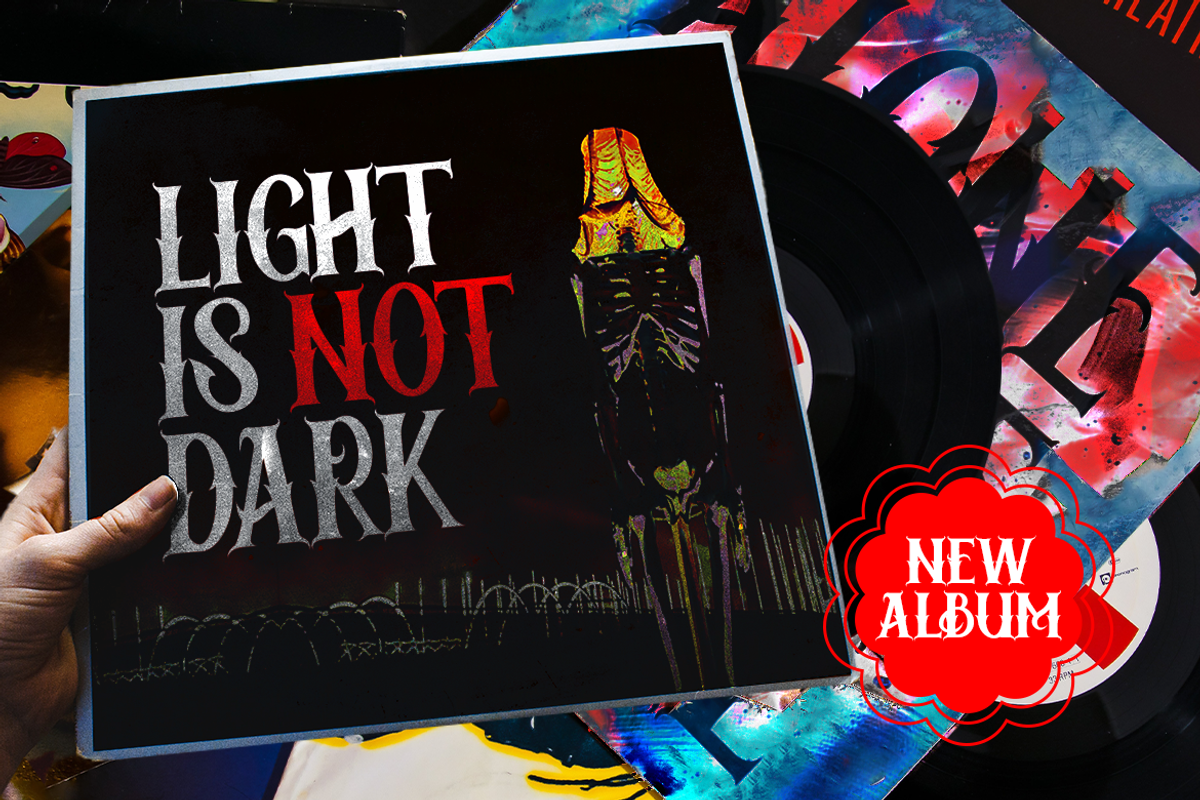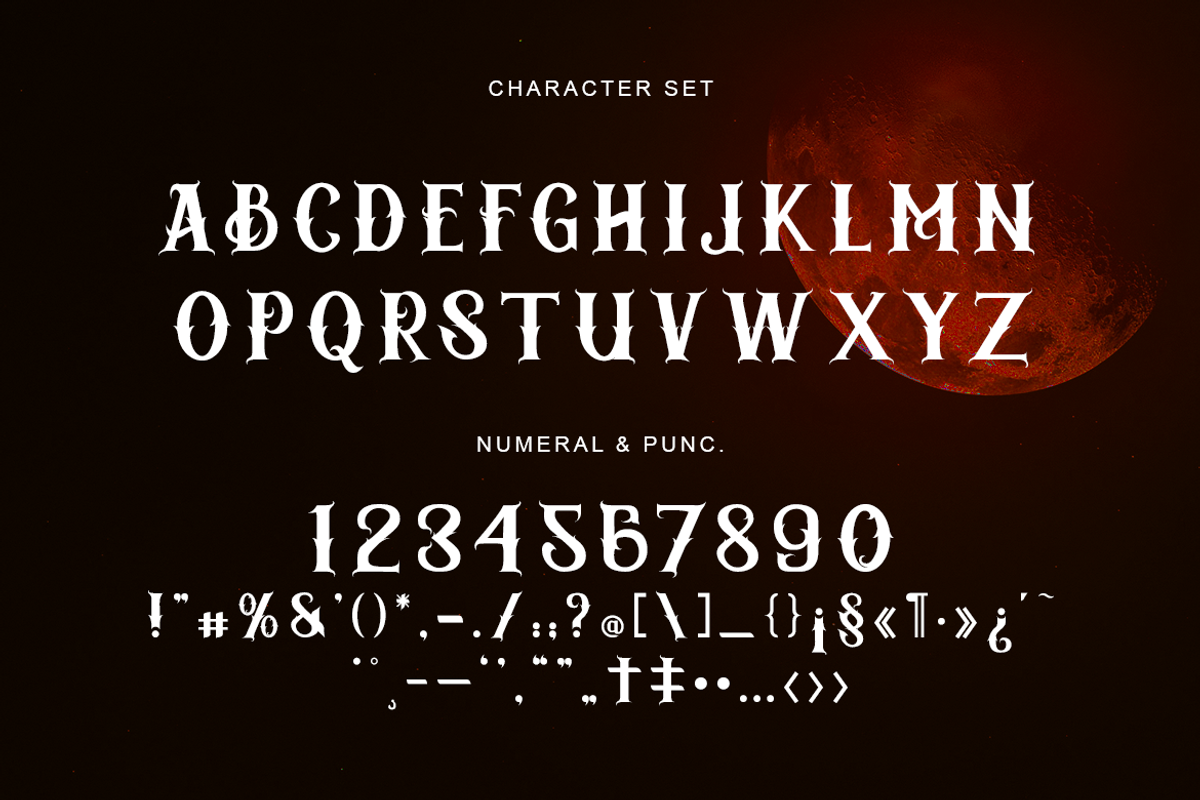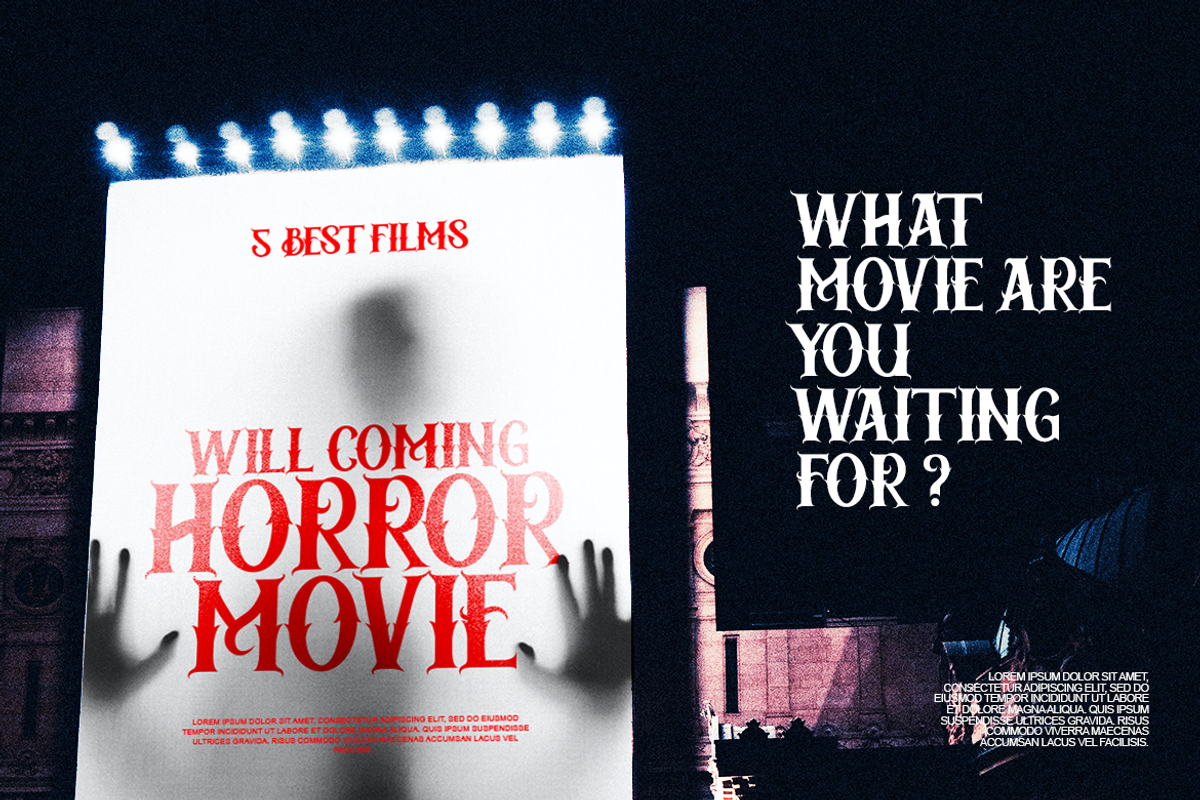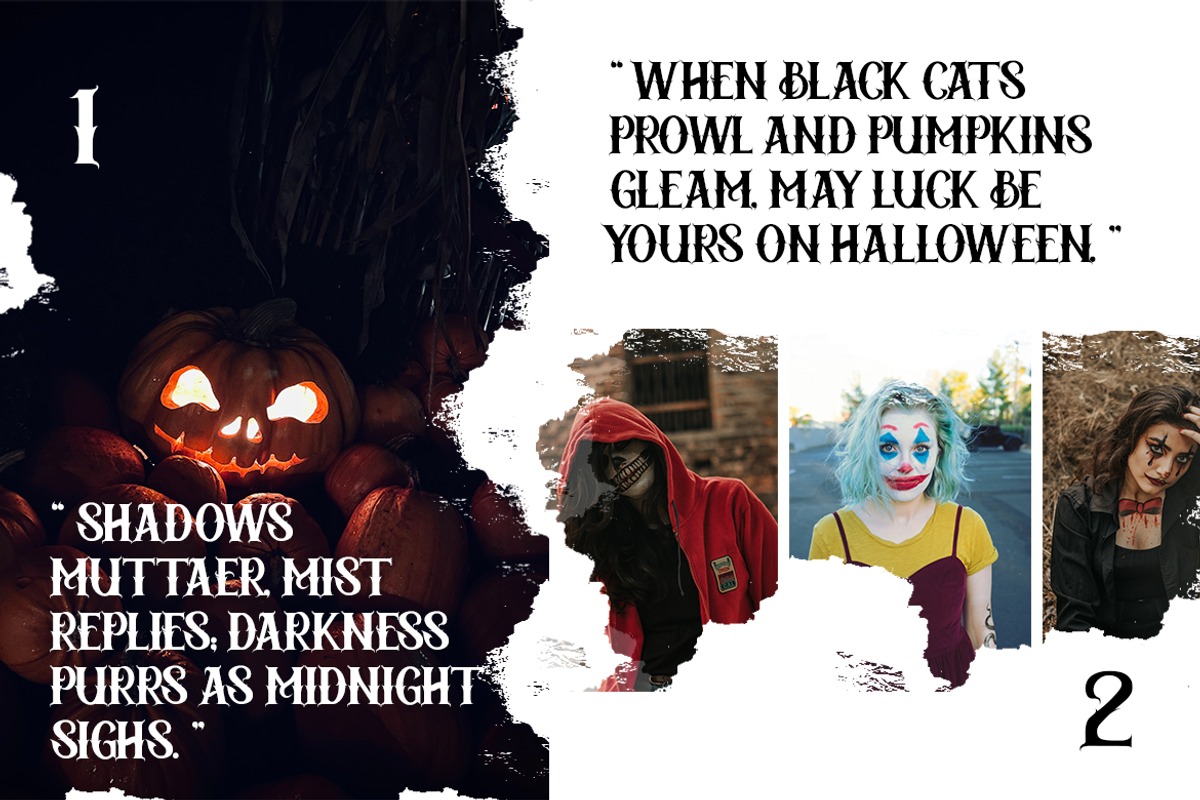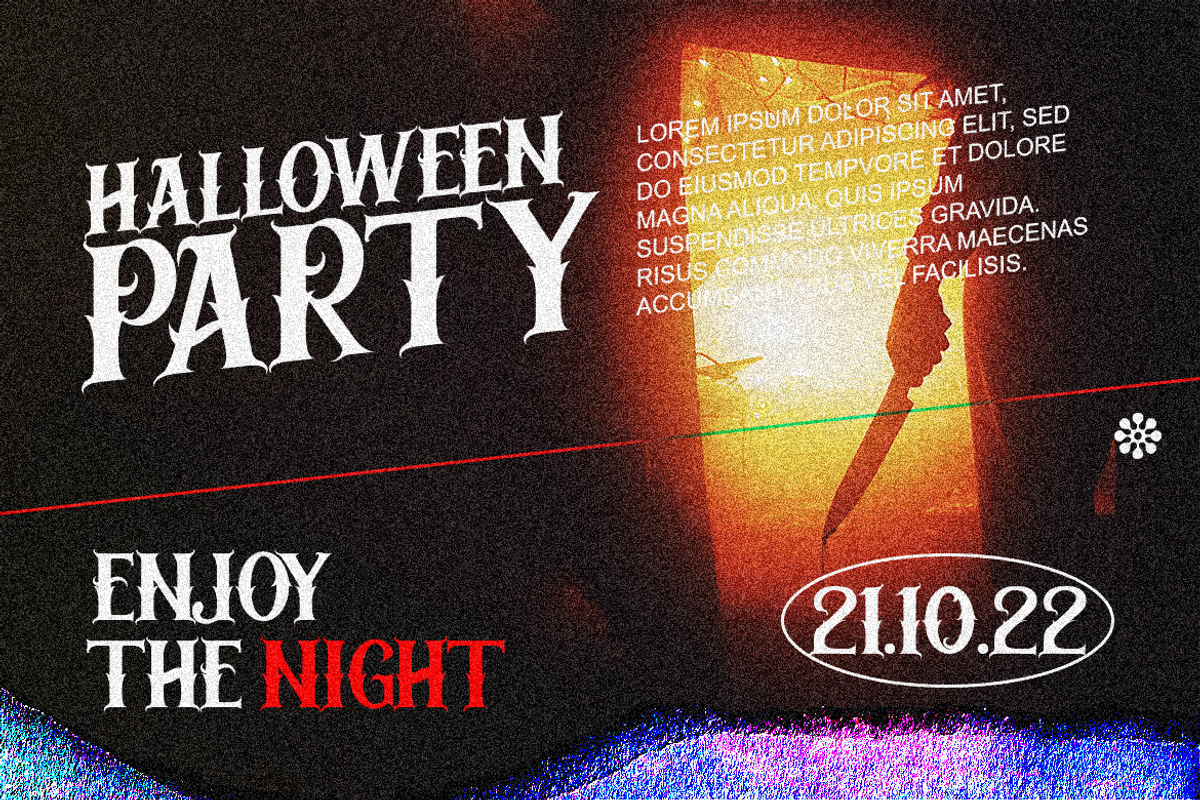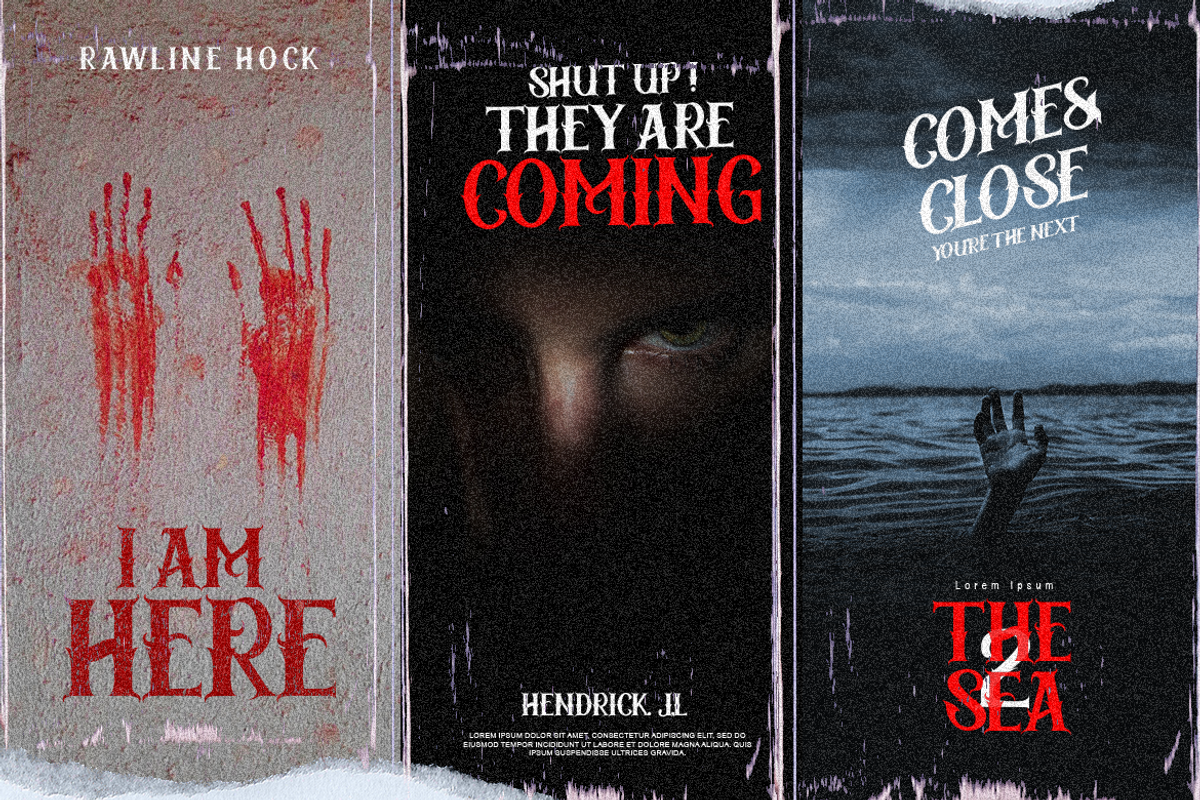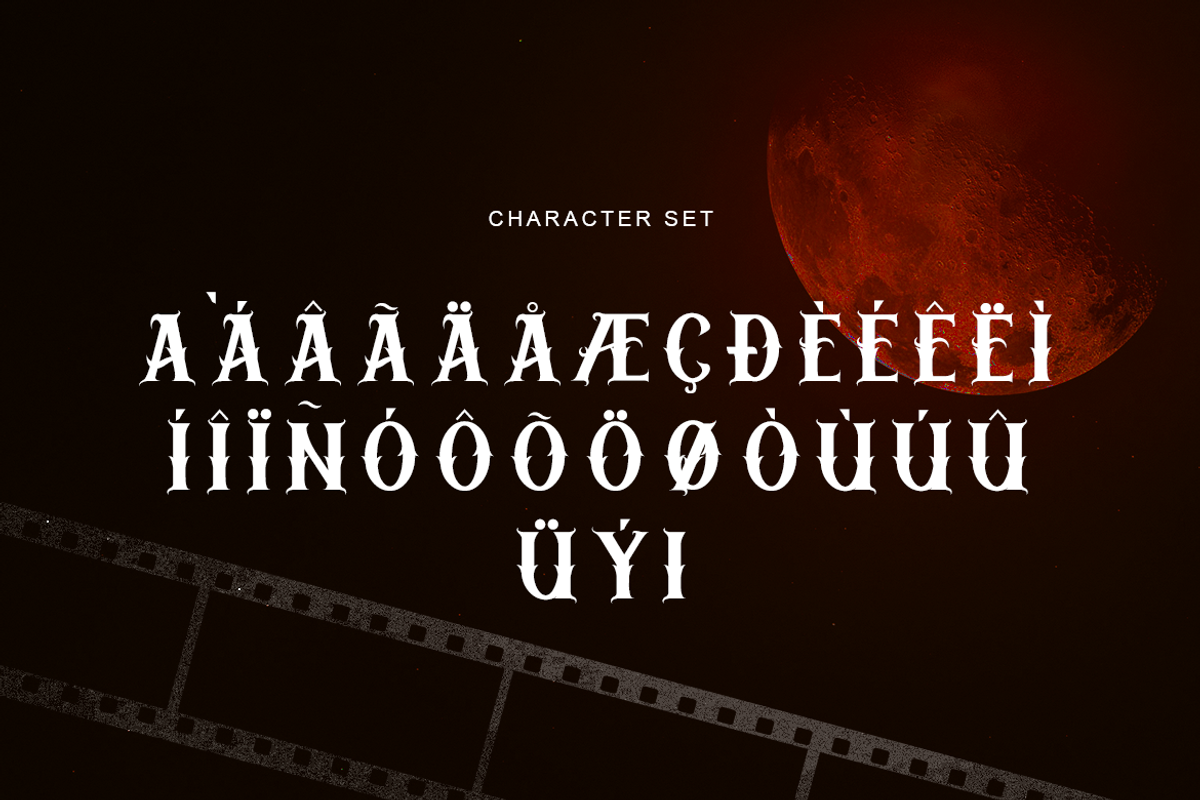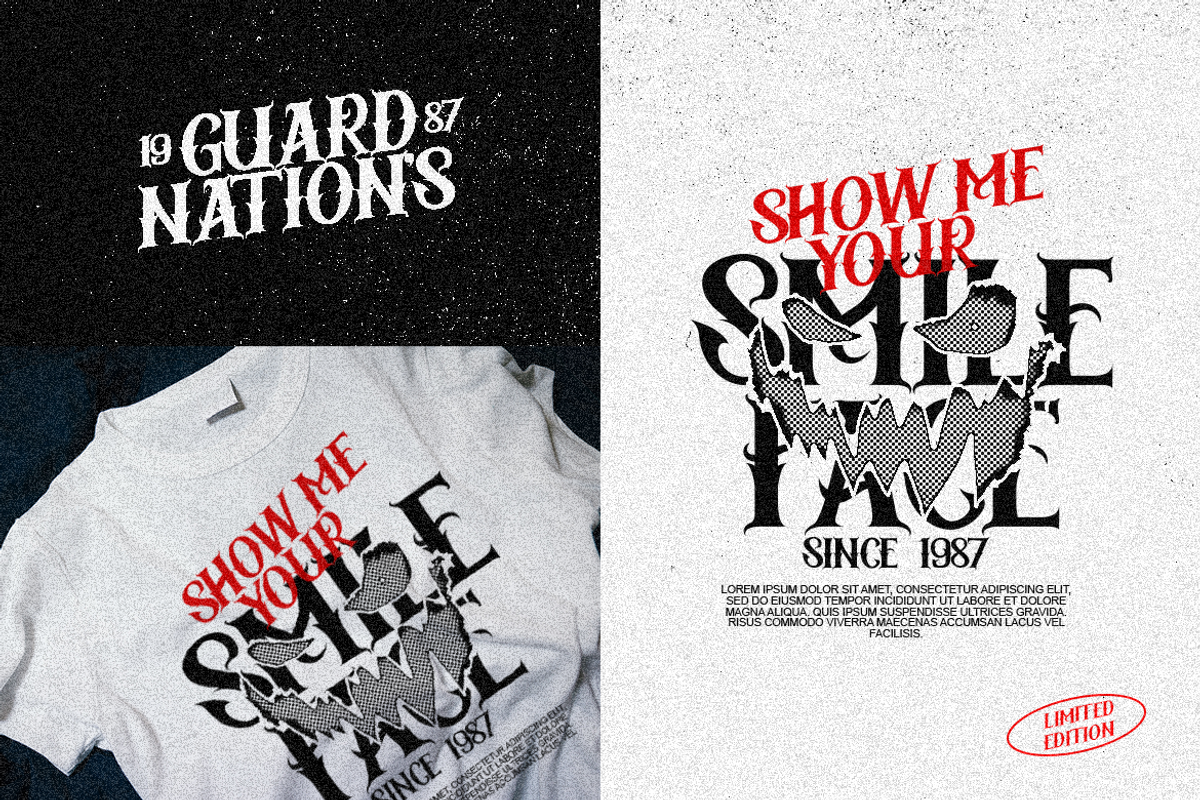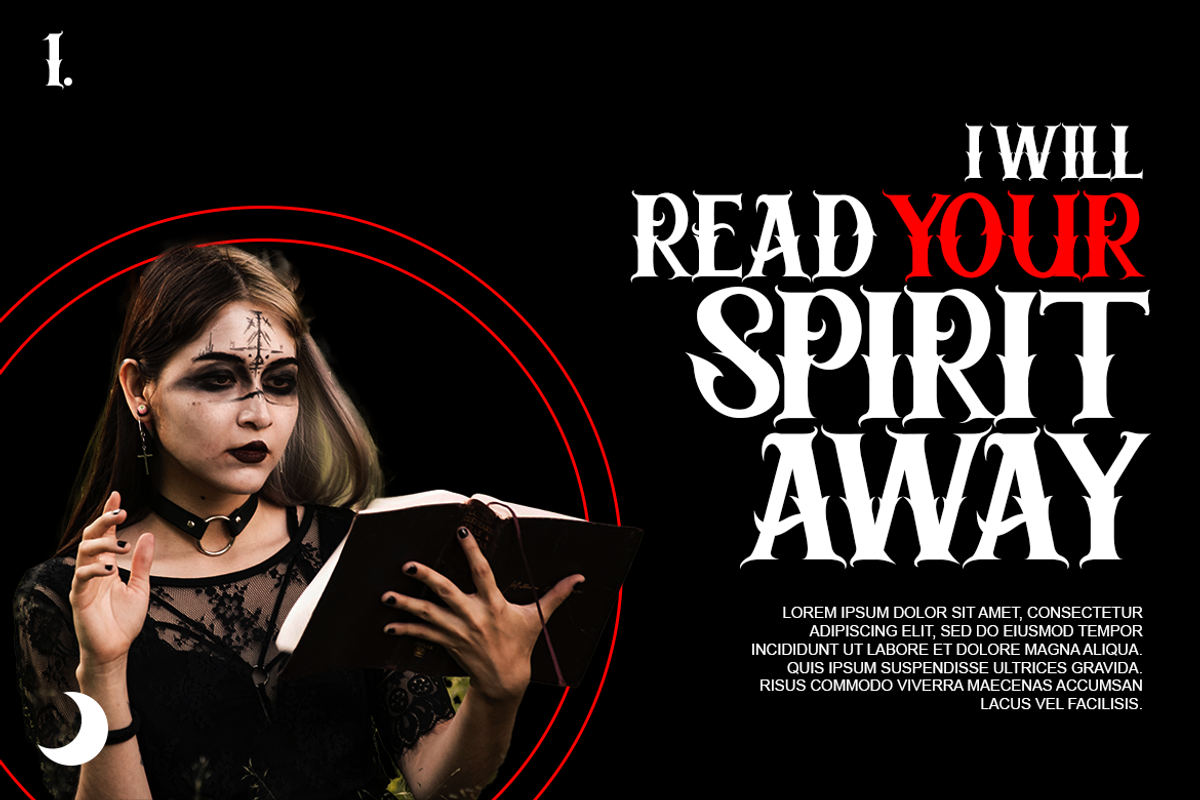
Baracuda Monster - Horror Font
Baracuda Monster is a Halloween-style horror font that can also be used to embellish a gothic design. This font is intended for horror films but can also be used for various projects that need a scary and creepy vibe.